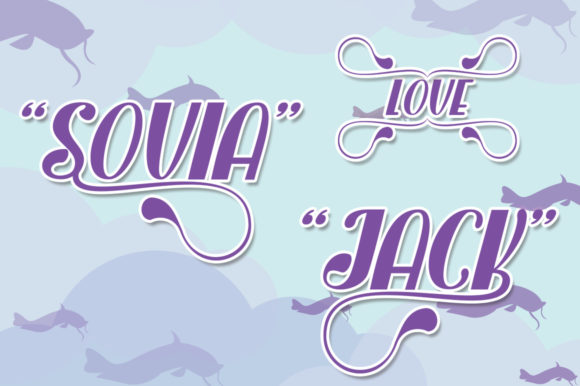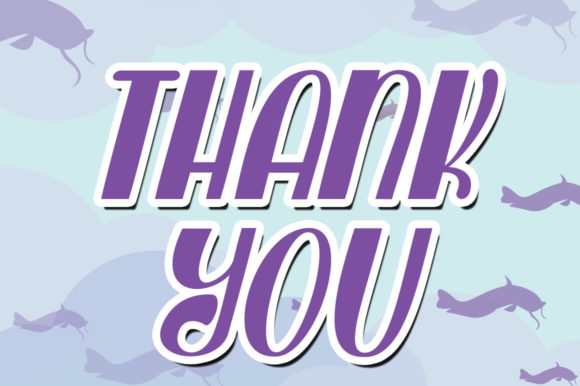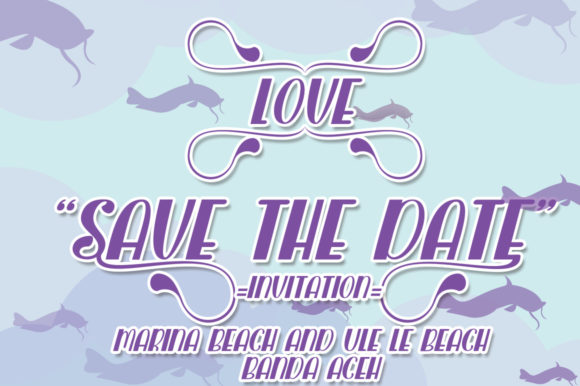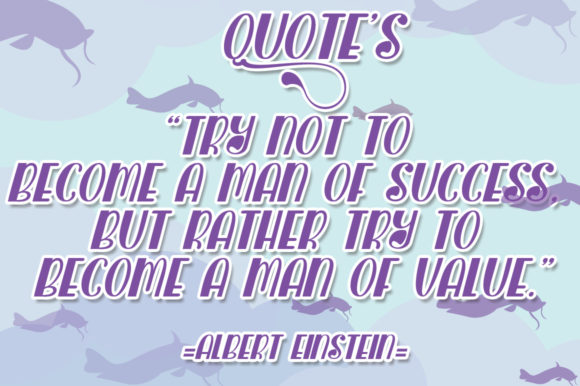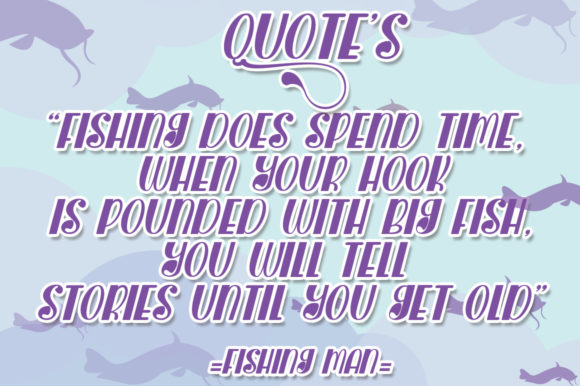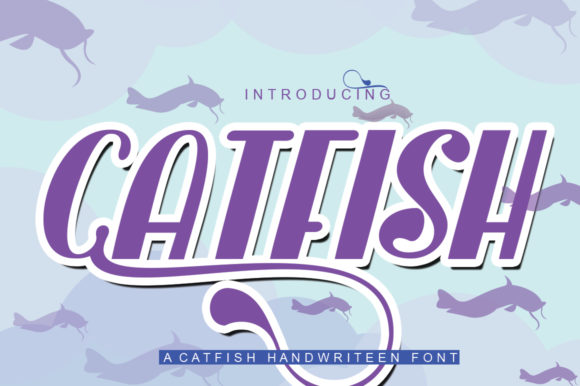
Unleash Your Creativity with Catfish Font: The Ultimate Playful Script
Are you tired of using the same old fonts for your design projects? Look no further! Introducing Catfish Font, a playful and fun script that is sure to take your designs to the next level. With its extraordinary swashes, Catfish Font is the perfect addition to any creative project. In this article, we’ll dive into the world of Catfish Font and explore its features, benefits, and uses.
What is Catfish Font?
Catfish Font is a unique and creative script font that is designed to add a touch of playfulness and whimsy to your designs. Its extraordinary swashes make it stand out from other fonts, giving your text a personalized and hand-crafted look. Whether you’re working on a branding project, a wedding invitation, or a social media graphic, Catfish Font is the perfect choice.
Features of Catfish Font
- Playful and Fun Script: Catfish Font has a lively and energetic feel to it, making it perfect for designs that require a touch of personality.
- Extraordinary Swashes: The font features beautiful swashes that can be used to add a decorative touch to your text.
- Highly Versatile: Catfish Font can be used for a wide range of design projects, from branding and advertising to packaging and stationery.
- Easily Customizable: The font is highly customizable, allowing you to adjust the size, color, and style to fit your design needs.
Benefits of Using Catfish Font
So why choose Catfish Font for your design projects? Here are just a few benefits of using this amazing font:
- Adds Personality to Your Designs: Catfish Font adds a touch of whimsy and playfulness to your designs, making them stand out from the crowd.
- Perfect for Creative Projects: The font is ideal for creative projects that require a unique and eye-catching look.
- Increases Engagement: The playful and fun script of Catfish Font can help increase engagement and interaction with your audience.
- Compatible with Various Design Software: Catfish Font is compatible with popular design software, making it easy to use and integrate into your workflow.
Uses of Catfish Font
Catfish Font can be used for a wide range of design projects, including:
- Branding and Advertising: Use Catfish Font to create eye-catching logos, ads, and marketing materials that stand out from the competition.
- Wedding and Event Invitations: Add a touch of whimsy and romance to your wedding and event invitations with Catfish Font.
- Social Media Graphics: Use Catfish Font to create engaging and shareable social media graphics that grab attention.
- Packaging and Product Design: Add a personal touch to your packaging and product designs with Catfish Font.
Tips and Tricks for Using Catfish Font
Here are some tips and tricks for getting the most out of Catfish Font:
- Experiment with Different Swashes: Try out different swashes and combinations to create unique and eye-catching designs.
- Pair with Other Fonts: Pair Catfish Font with other fonts to create interesting and contrasting designs.
- Adjust Font Size and Color: Experiment with different font sizes and colors to add depth and interest to your designs.
In conclusion, Catfish Font is a playful and fun script font that is sure to take your design projects to the next level. With its extraordinary swashes and highly versatile design, Catfish Font is the perfect choice for creative designers and crafters. Whether you’re working on a branding project, a wedding invitation, or a social media graphic, Catfish Font is the perfect addition to your design toolkit.